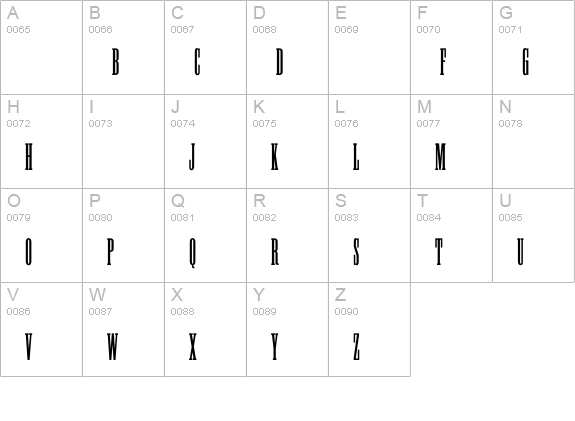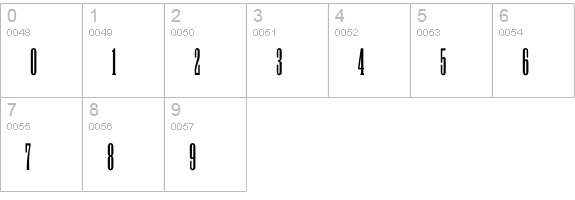
TitanicCondensed Font Details
TitanicCondensed font is a bold and striking typeface that exudes elegance and sophistication. Its condensed letterforms create a sleek and refined look, making it perfect for headlines, titles, and other eye-catching designs. The clean lines and sharp edges of this font add a touch of modernity, while its subtle curves give it a timeless appeal. TitanicCondensed font captures attention and conveys a sense of confidence and professionalism, making it an ideal choice for branding, advertising, and editorial projects. With its extensive character set, including uppercase letters, lowercase letters, numbers, and punctuation marks, TitanicCondensed font provides versatility and flexibility for any creative endeavor. Whether you're designing a logo, creating a poster, or crafting a website, this font will elevate your work to new heights. The best part? TitanicCondensed font is available for free download at FontsMarket.com. You can access this stunning font without any cost, making it a valuable addition to your design toolbox. Its availability on FontsMarket.com ensures easy and convenient access to this font, so you can start using it right away and bring your designs to life. Don't miss out on the opportunity to enhance your projects with the bold and impactful TitanicCondensed font. Download it for free at FontsMarket.com today and elevate your designs to new levels of creativity and professionalism.